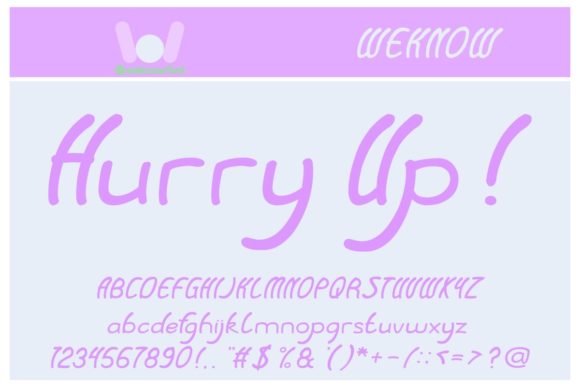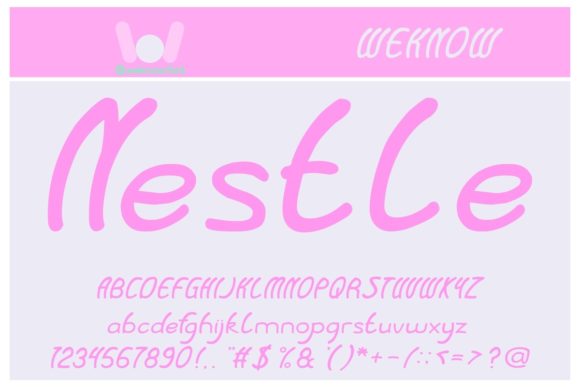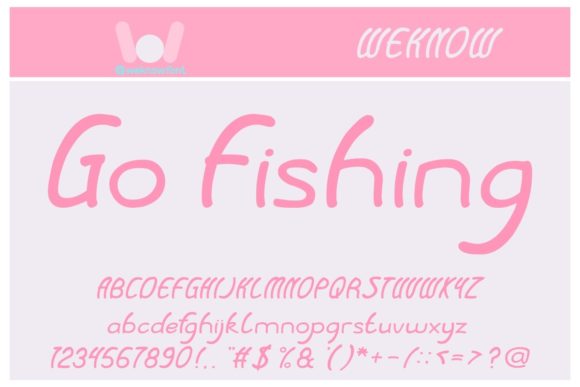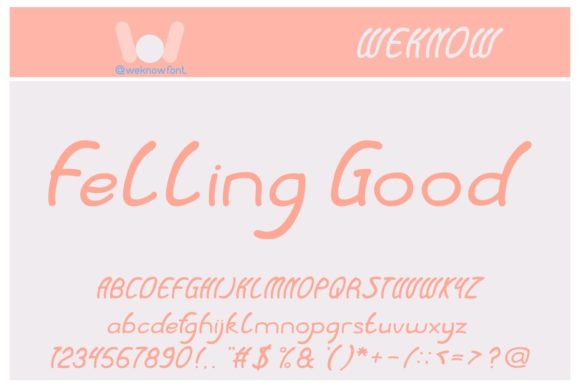
Unlocking the Sweetness of Handwritten Typography
Remember the countless hours spent doodling in your notebook as a child? The joy of creating something from scratch, the thrill of watching a simple scribble come to life? For designers, that same sense of excitement can be rekindled with the right font. Enter Baby Cuttie Font, a charming handwritten font that brings a touch of whimsy to any project.
Baby Cuttie Font is a versatile and adorable font perfect for logos, headlines, and corporate identities. Its playful, childlike charm makes it an ideal choice for the apparel industry, posters, music, movies, and more. Whether you’re working on a YouTube video, an Instagram campaign, or a website, Baby Cuttie Font is sure to add a personal touch to your designs.
Baby Cuttie Font Key Features
- Font Style: A cute, playful, and endearing font, perfect for creating a nursery or baby-themed design.
- Unique Characteristics: The font features rounded shapes, smooth lines, and a soft, gentle feel, making it ideal for creating a warm and inviting atmosphere.
Baby Cuttie Font Review
I recently had the chance to work with the “Baby Cuttie Font”, and I wanted to share my honest thoughts on it.
- The font is adorable and perfect for any baby-related project.
- The characters are well-designed and detailed, making them perfect for printing or using digitally.
- The font is highly customizable, allowing you to adjust the size, color, and style to fit your project’s needs.
- The font is also very versatile and can be used for a variety of projects, from baby announcements to nursery decor.
- The font is limited in its character set, which may not be suitable for longer texts or projects that require a wide range of characters.
- The font may not be suitable for formal or professional projects, as it has a very casual and playful feel.
Overall, I think the “Baby Cuttie Font” is a great choice for projects that require a cute and playful touch. However, it may not be the best choice for projects that require a more formal or professional feel. With its high level of customization and versatility, it’s a great option for designers looking to add a personal touch to their projects.
To get the most out of the Baby Cuttie Font, use it in conjunction with cute graphics and illustrations. This font is perfect for designing baby-related products, such as nursery decor, baby clothes, and stationery.
The Baby Cuttie Font is commonly used in:
- Baby product design (e.g. nursery decor, baby clothes)
- Stationery and gift cards
- Social media graphics and ads
Alternative Fonts to Baby Cuttie Font
The Great Vibes font is a beautiful, elegant script font that is perfect for adding a touch of sophistication to your designs. It’s ideal for use in wedding invitations, baby announcements, and other special occasion graphics. In comparison to Baby Cuttie Font, Great Vibes has a more refined and mature feel, making it suitable for a wider range of design applications.
Pacifico is a modern script font that is perfect for adding a relaxed, beachy vibe to your designs. It’s ideal for use in summer-themed graphics, travel brochures, and other projects that require a laid-back feel. Compared to Baby Cuttie Font, Pacifico has a more casual and carefree feel, making it perfect for projects that require a fun and playful tone.
Alex Brush is a elegant script font that is perfect for adding a touch of luxury to your designs. It’s ideal for use in high-end branding, packaging, and other design projects that require a sophisticated and refined feel. Compared to Baby Cuttie Font, Alex Brush has a more formal and polished feel, making it suitable for projects that require a high level of sophistication.
Carolyna Pro is a beautiful, elegant script font that is perfect for adding a touch of glamour to your designs. It’s ideal for use in fashion branding, packaging, and other design projects that require a sophisticated and refined feel. Compared to Baby Cuttie Font, Carolyna Pro has a more luxurious and high-end feel, making it suitable for projects that require a level of sophistication and elegance.